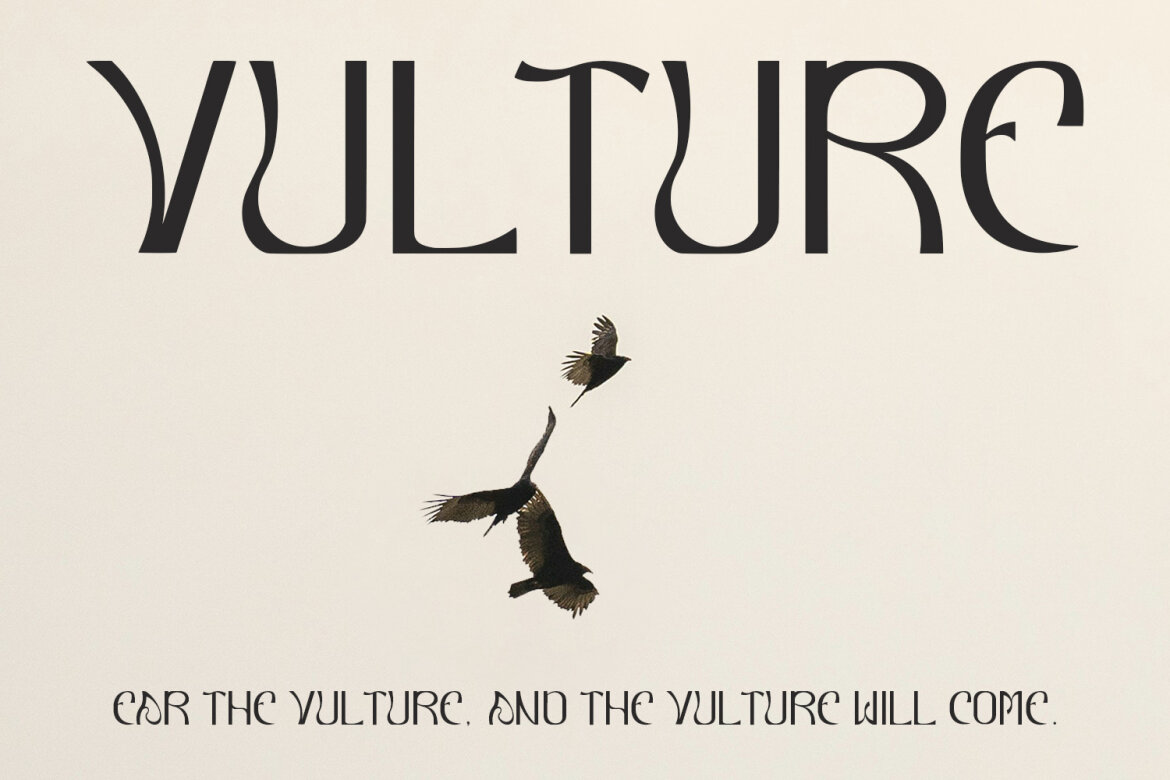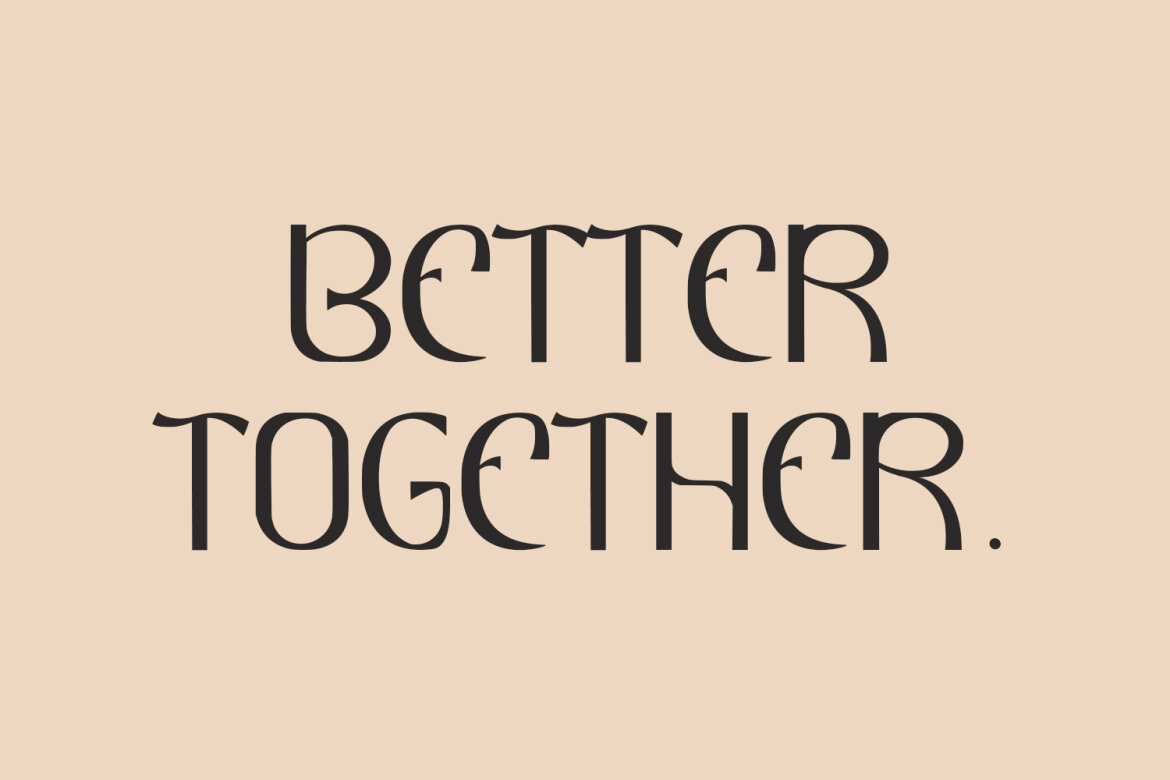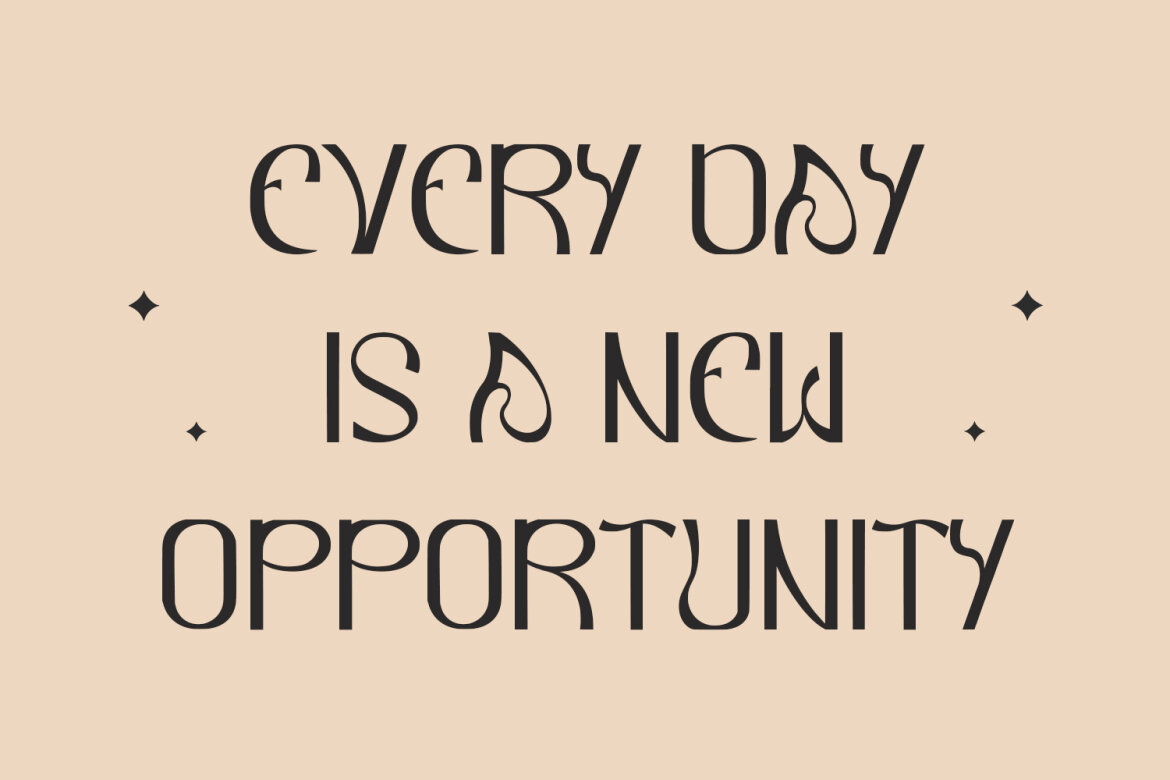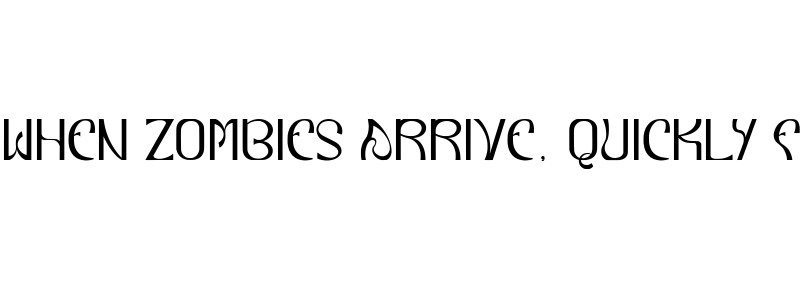
Reqiezza Decorative FREE Font
Reqiezza
Reqiezza decorative display font. With sharp bold stroke, fun character with a alternates. To give you an extra creative work. Reqiezza font support multilingual language. This font is good for logo design, Social media, Movie Titles, Books Titles, a short text even a long text letter and good for your secondary text font with script or serif. Make a stunning work with Reqiezza font.